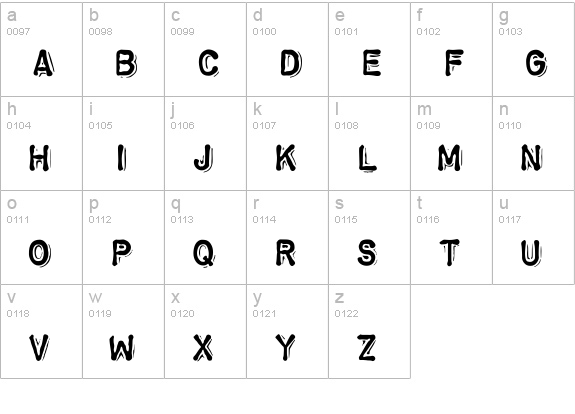
Chromosome Heavy Font Details
Chromosome Heavy is a heavy, high-impact variant in the Chromosome typeface family \xE2\x80\x94 well suited to high-impact headlines, posters, and display advertising.
Chromosome Heavy font is a bold and striking typeface that exudes power and strength. With its clean lines and sturdy appearance, this font is perfect for making a statement in your designs. Whether you're creating posters, logos, or headlines, Chromosome Heavy font will certainly grab attention and leave a lasting impression. The best part? Chromosome Heavy font is available for free download at FontsMarket.com. This means you can easily access this impactful font and incorporate it into your projects without any cost. Don't miss out on the opportunity to elevate your designs with the commanding presence of Chromosome Heavy font. Download it now and make your creations stand out!